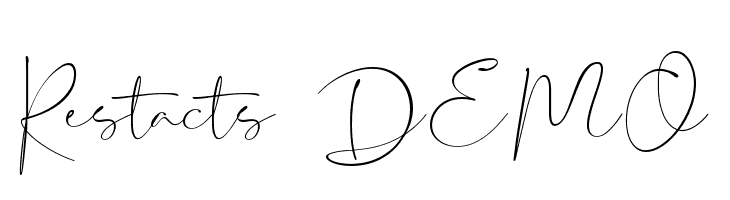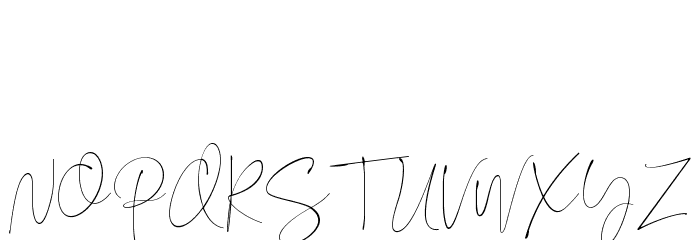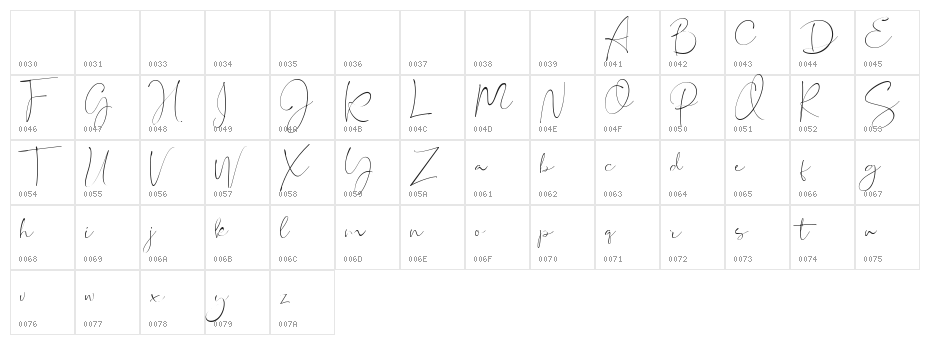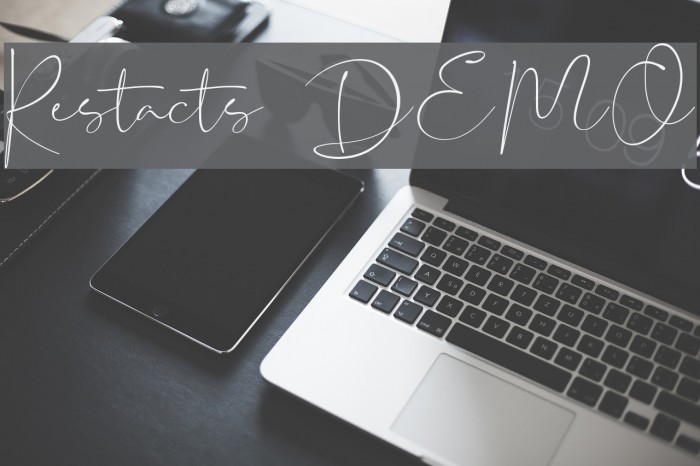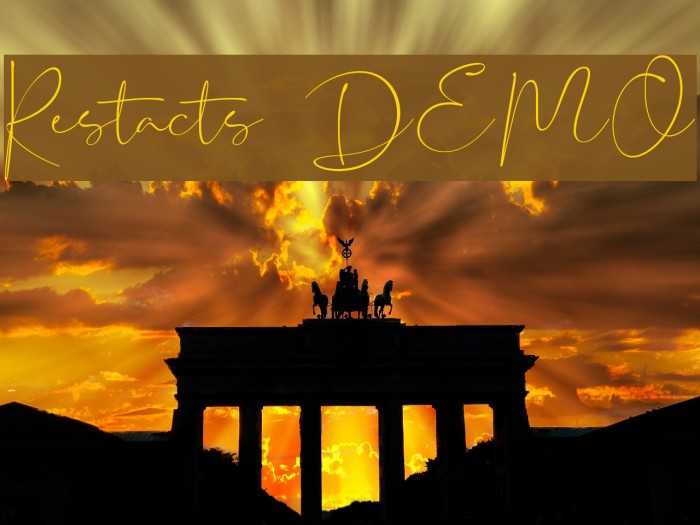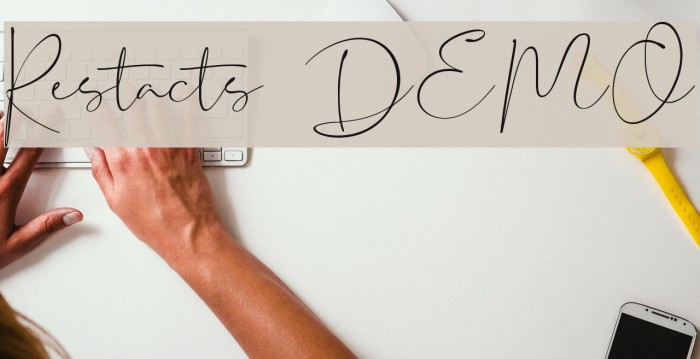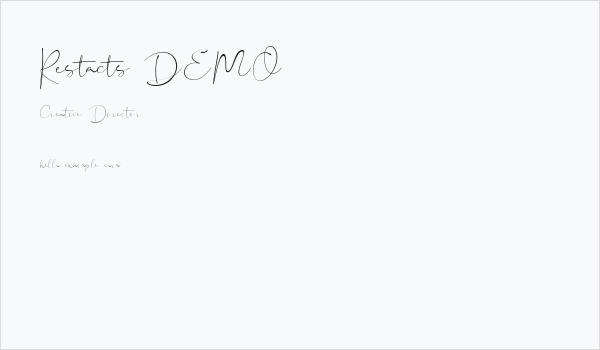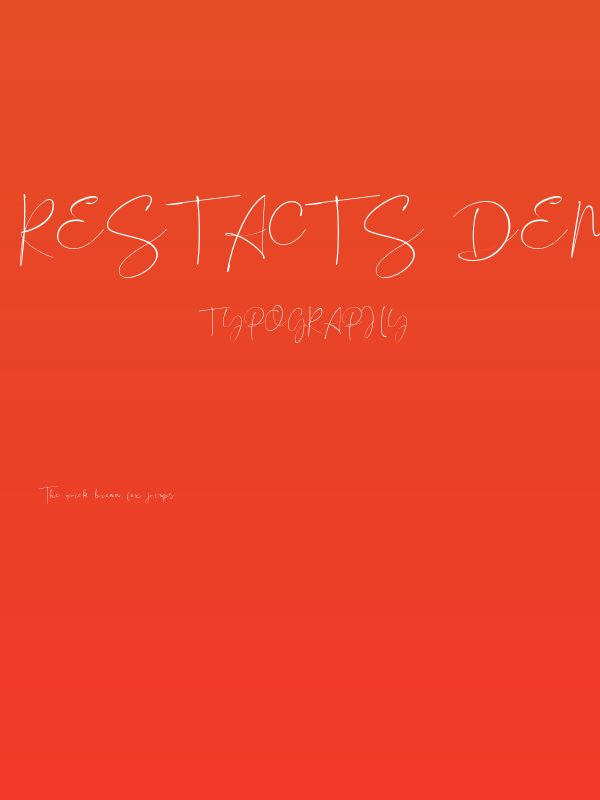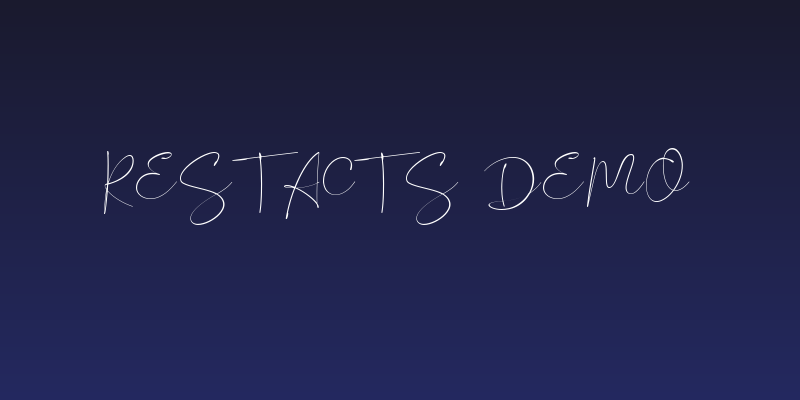
Restacts DEMO Font
Restacts DEMO Description
This font features a fluid, cursive style with elegant, sweeping lines that give it a handwritten appearance. The letters are connected in a flowing manner, creating a sense of movement and grace. The strokes vary in thickness, adding a dynamic and lively feel to the text. The uppercase letters are bold and prominent, while the lowercase letters maintain a consistent, delicate form. This font exudes a sense of sophistication and creativity, making it suitable for artistic and expressive projects. Its unique style captures attention and conveys a personal touch.